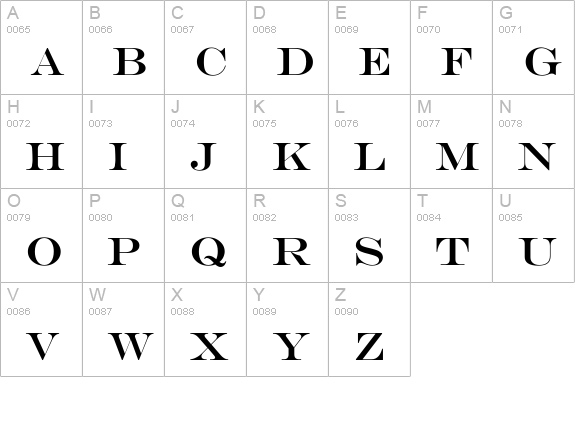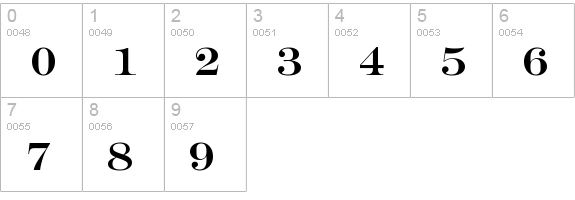
MEngravers-SizeOne Font Details
MEngravers-SizeOne is a beautifully crafted font that exudes elegance and sophistication. Its sleek lines and intricate details make it perfect for adding a touch of class to any project. This font is versatile and can be used for a variety of design purposes, from invitations to branding to packaging. What makes MEngravers-SizeOne even more appealing is that it is available for free download at FontsMarket.com. This means that you can easily access this stunning font without any cost, making it a valuable addition to your font collection. Don't miss out on the opportunity to enhance your designs with the timeless beauty of MEngravers-SizeOne. Download it now and let your creativity soar!